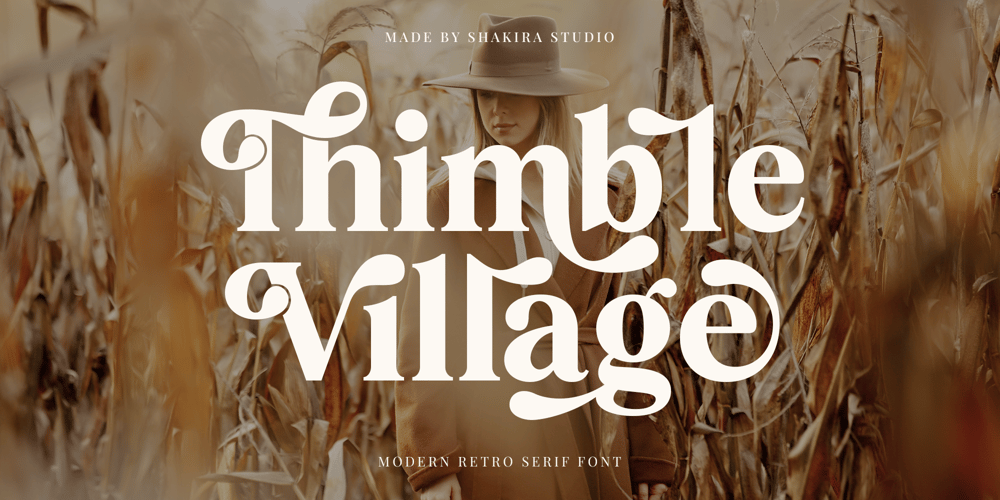
Thimble Village Font Family was designed by Idhham Cholid Rikzano Yahya and published by Shakira Studio. Thimble Village contains 2 styles and family package options. Thimble Village – Modern Serif FontIs a modern serif font it’s a cool modern take on a retro classic, and it’s ready to make a lasting impression on your merchandise, quote designs, header text, logos & branding, advertisements and much more. It’s packed with plenty of alternates and ligatures to really bring it to life, and give you a wide range of customisation options.Features:· 2 Weights font (Regular,Italic)· Lowercase and Uppercase· Beautiful Alternates & Ligatures· Numerals & Punctuation· Accented characters· MultilingualHOW TO ACCESS ALTERNATE CHARACTERSOpen glyphs panel:In Adobe Photoshop go to Window – glyphsIn Adobe Illustrator go to Window – Type – glyphsI really hope you’ll get pleasure using Thimble Village font and it will be perfect addition to your font collection! Contact me with an inbox message If you have any question.Thank you and enjoy!